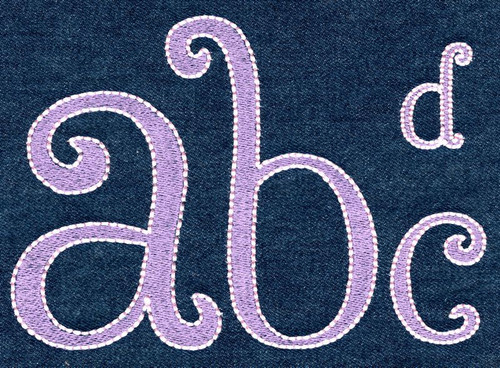
295 Little Sugar Fill & Floss Font
Little Sugar FillFloss Font comes in four sizes; 1", 2", 3" & 4". Each size is finished in fill stitch with Floss stitch outlines in a two color set up. This set is lowercase letters only (no uppercase, no numbers, no punctuations available for this set). Each set size is based on the lowercase "a" so letters with ascenders and descenders (like "b" or "p")will be taller and in the 3" and 4" sets those letters will exceed standard 4x4 and 5x7 hoop limitations.